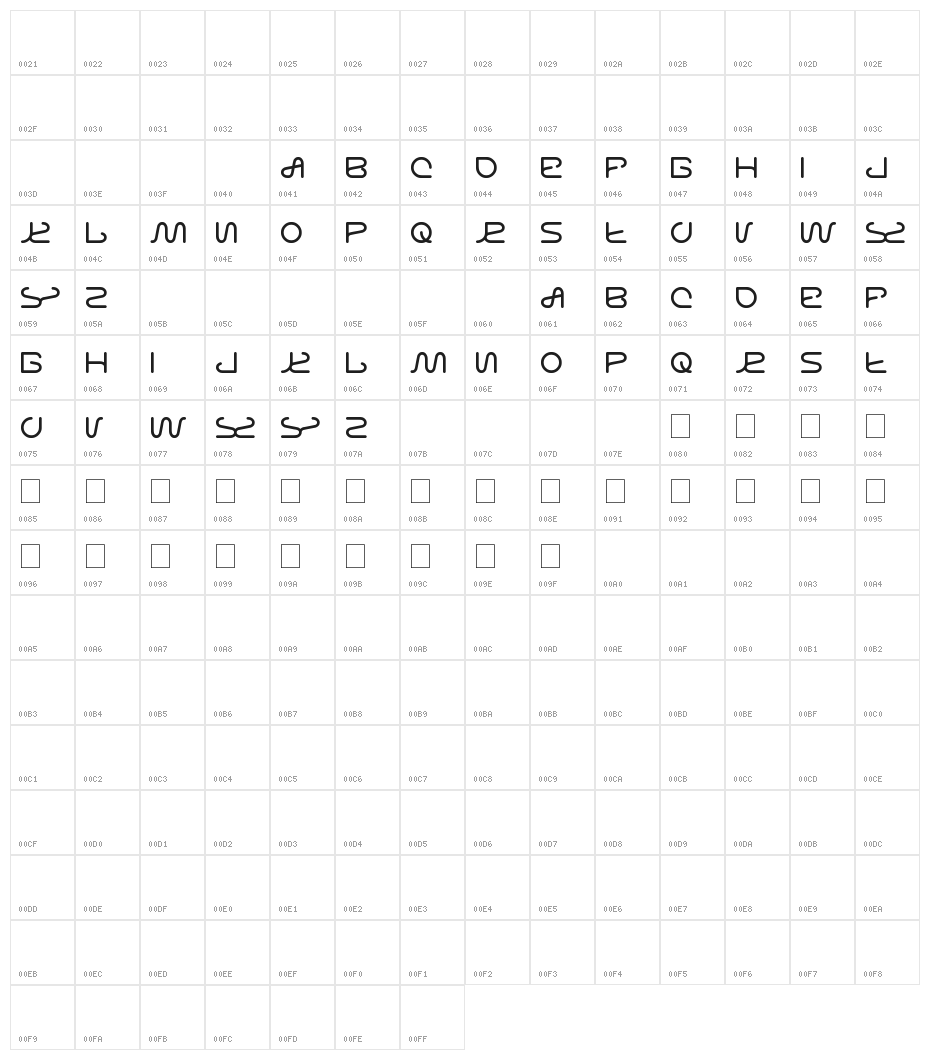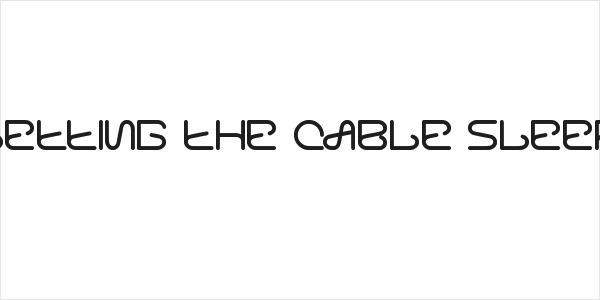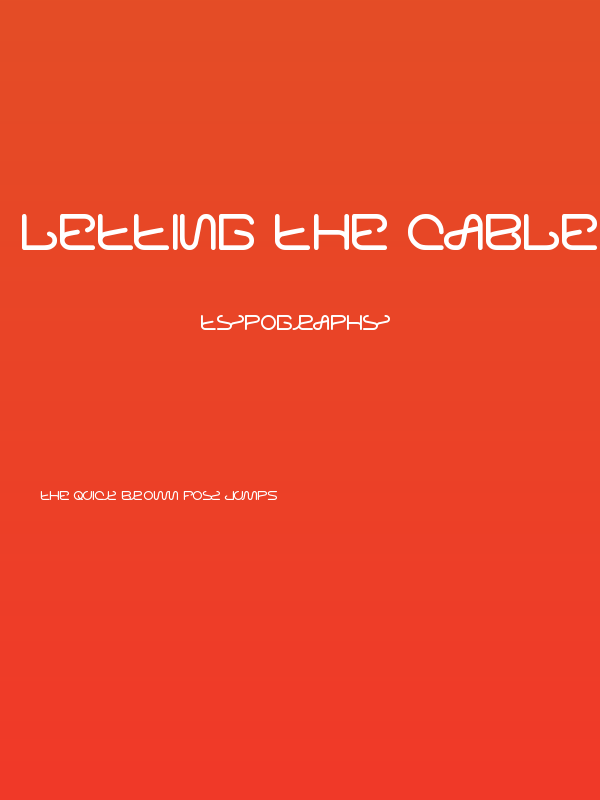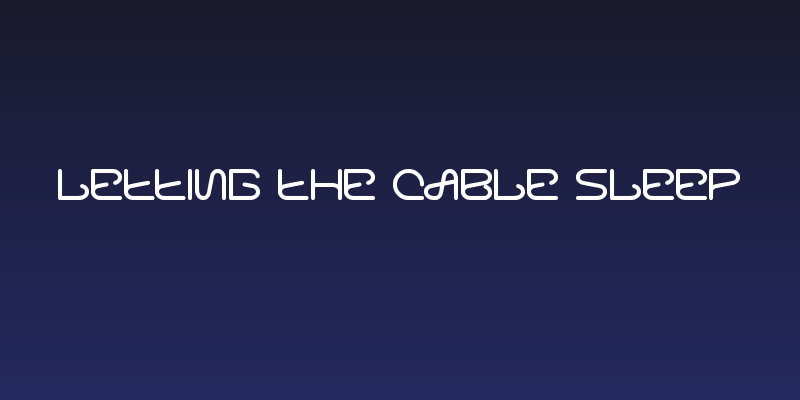
letting the cable sleep Font
letting the cable sleep Description
This font features a unique, futuristic design with a continuous, flowing line that forms each character. The letters are constructed with a consistent stroke width, creating a harmonious and cohesive appearance. The design incorporates rounded edges and smooth curves, giving it a sleek and modern look. The characters are connected in a way that suggests movement and fluidity, making it visually engaging. This font's distinctive style is both artistic and functional, suitable for creative projects that require a touch of innovation and modernity.
| Use Case | Logos, Headlines, Digital Art |
| Proposed Projects | Ideal for sci-fi themed designs, modern branding, digital art projects, and innovative product packaging. |